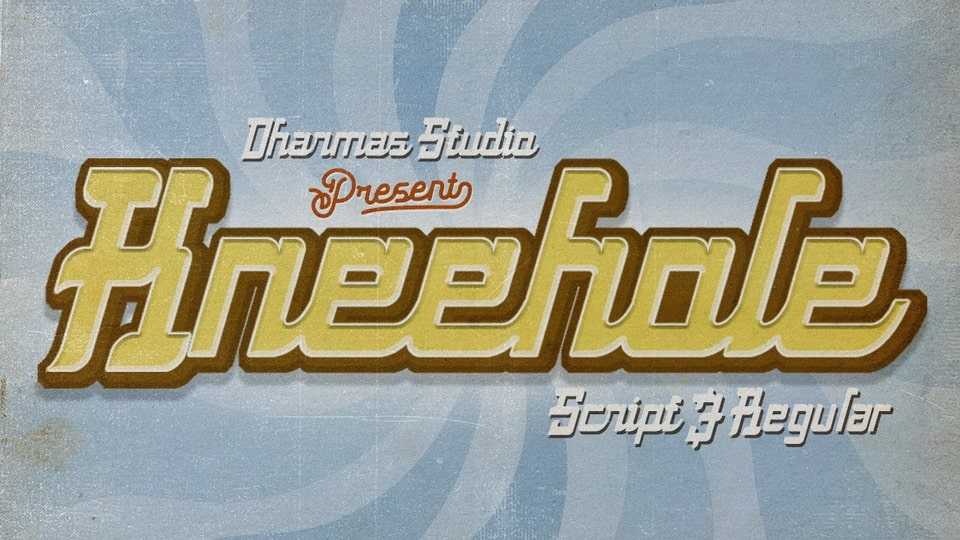
Download Kneehole font, a captivating typeface that encapsulates the essence of vintage and retro charm, with a distinctive square-shaped letter design.